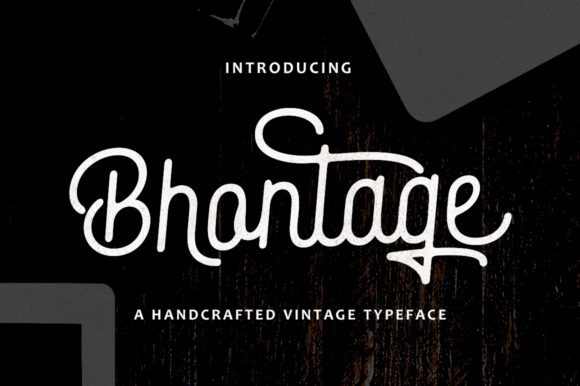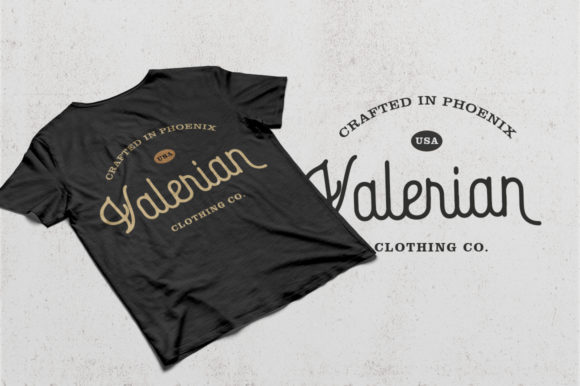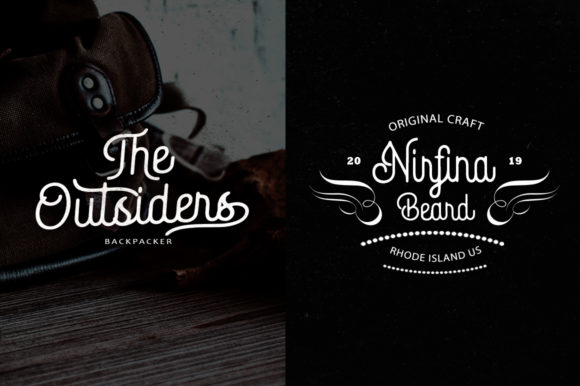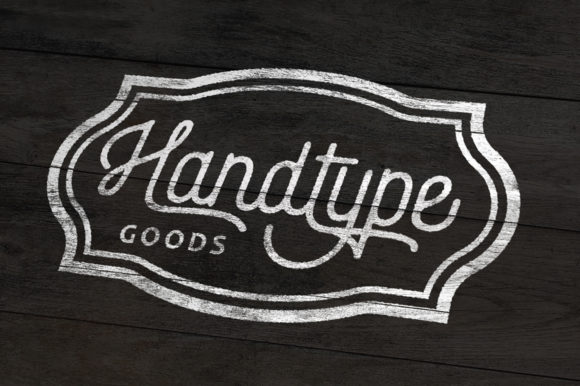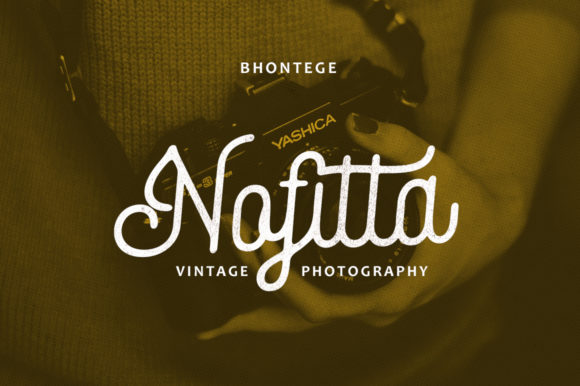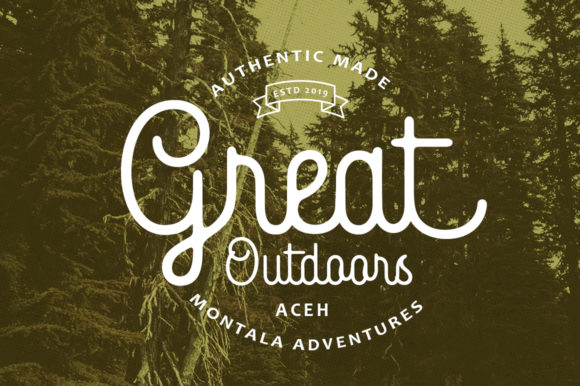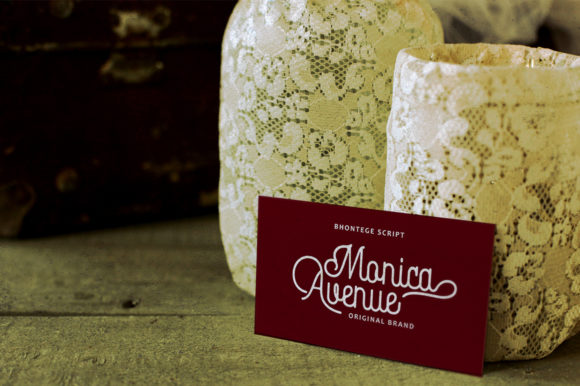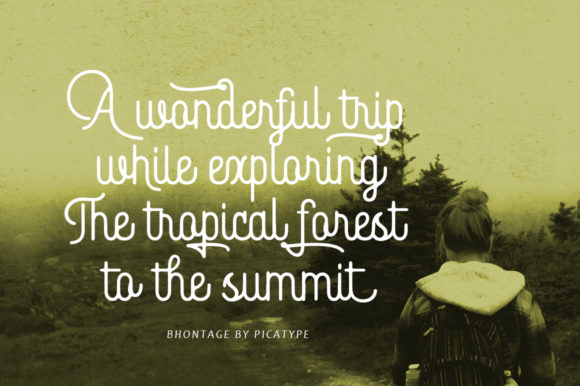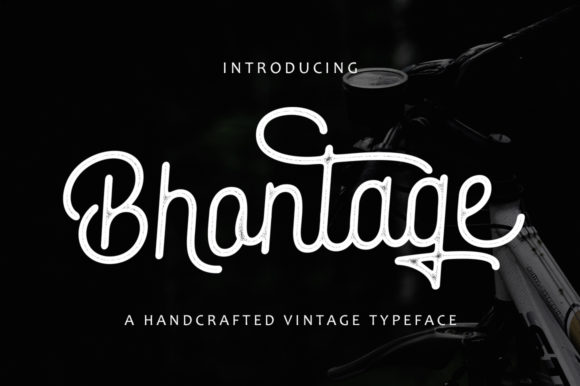
Bhontage Font
About Bhontage Font
Bhontage is a powerful multipurpose handwritten font, perfectly suitable for a multitude of design projects. Get inspired by its modern charm.